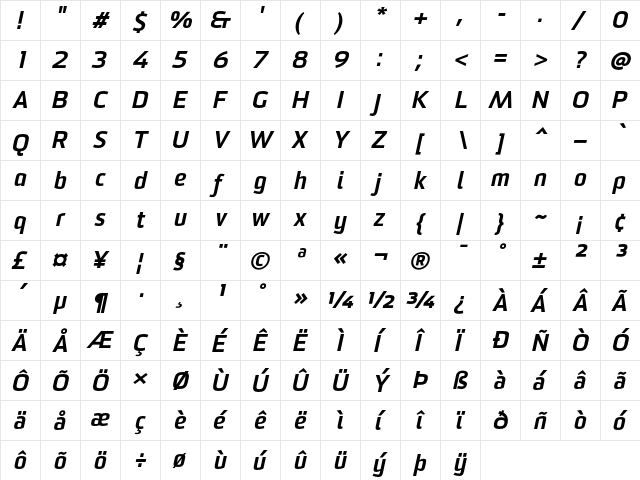
Sommet Black Italic Black Italic
Design Context for Sommet Black Italic Typeface
Sommet Black Italic takes a measured approach to typography — its balanced proportions and neutral character make it a reliable workhorse for both digital and print work. Its italic angle brings a sense of urgency and motion to the letterforms.
Pro Tip: Use Sommet Black Italic for emphasis, pull quotes, and subheadings where its slanted energy can add rhythm to the layout.